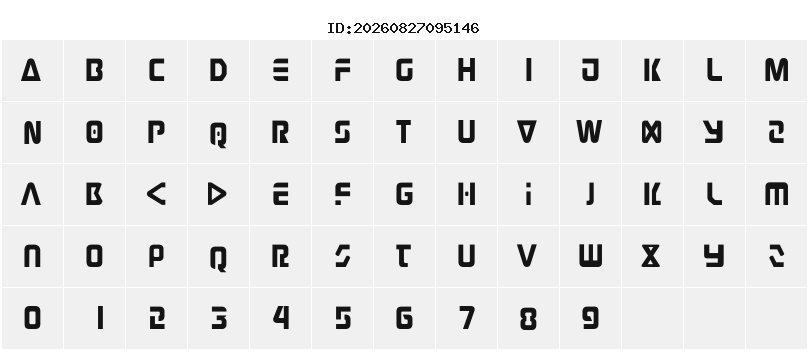
About 338-CAI978.ttf
338-CAI978.ttf is a modern, elegant sans-serif font designed for ultimate readability and visual harmony. Perfect for branding, headlines, web design, and print materials.